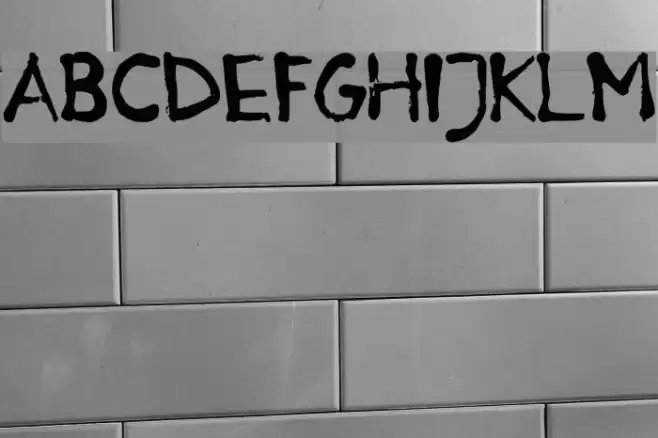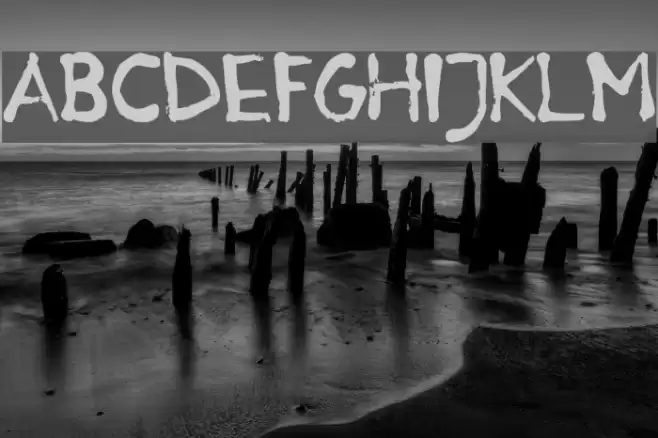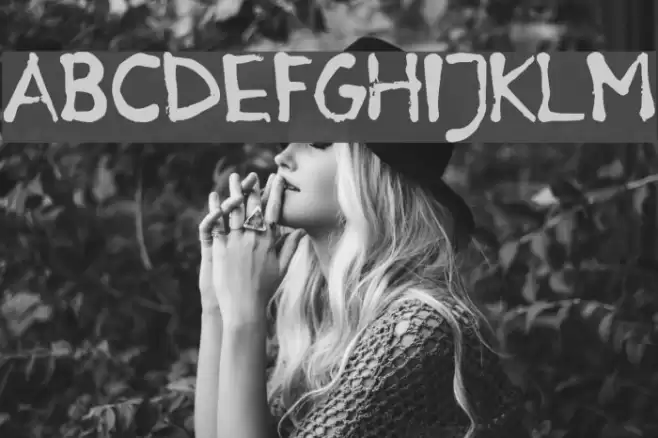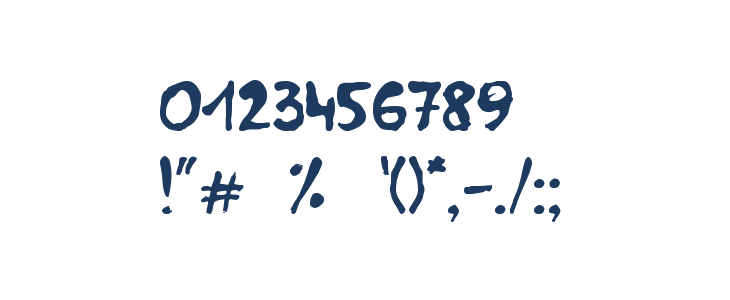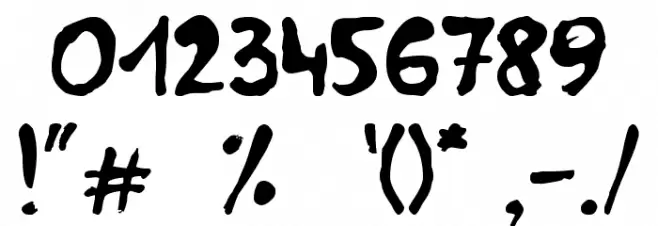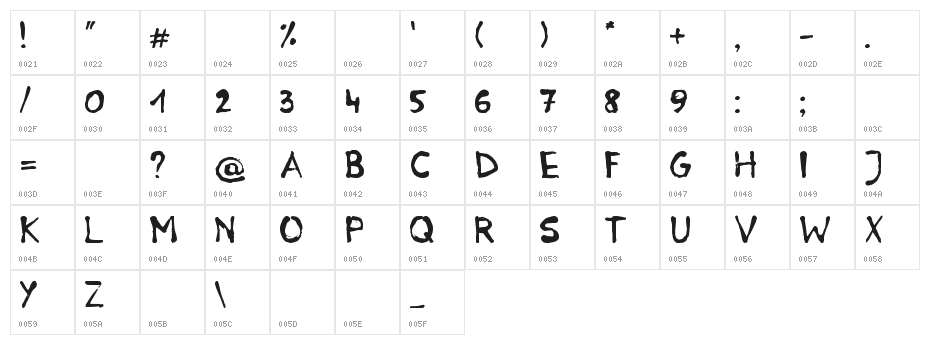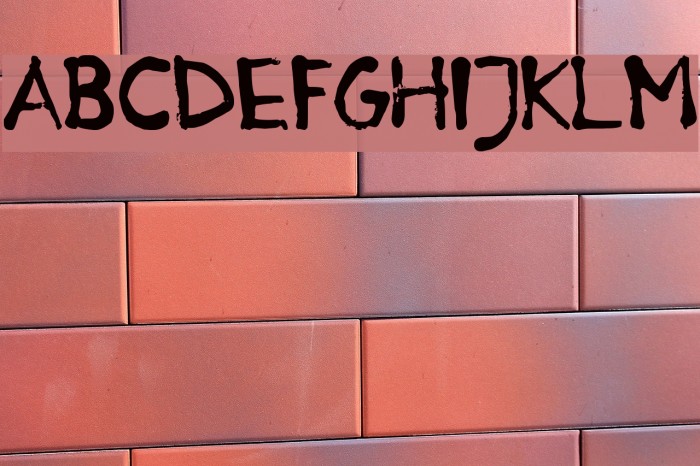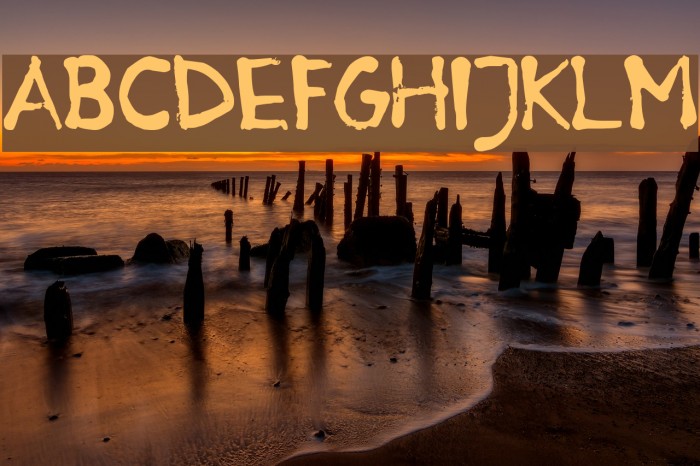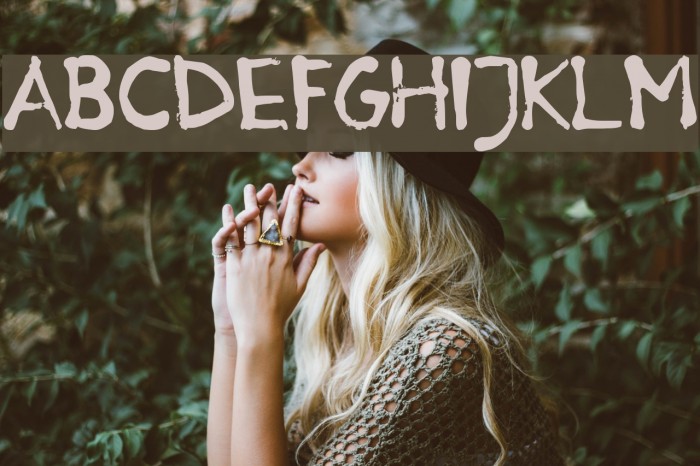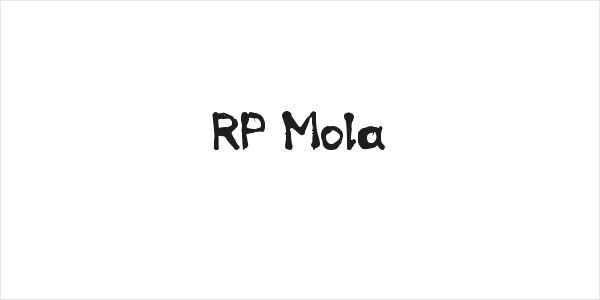
RP Mola Font
RP Mola Description
This font features a bold and expressive style with a hand-drawn appearance. The characters are irregular and have a playful, artistic quality, reminiscent of brush strokes or ink splatters. The uppercase and lowercase letters maintain a consistent thickness, giving the font a cohesive look. The numbers and special characters follow the same design principles, adding to the overall whimsical and creative feel. This font's unique style makes it stand out, perfect for projects that require a touch of personality and flair.
A bold, hand-drawn font with an expressive and artistic style from Handwritten fonts.
- Proposed Projects: Ideal for creative projects such as posters, album covers, children's books, and artistic branding.
- Use Case: Headlines, Logos, Artistic projects